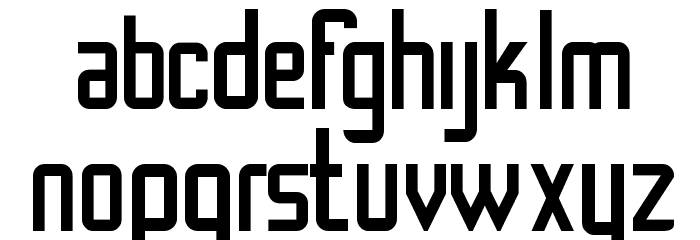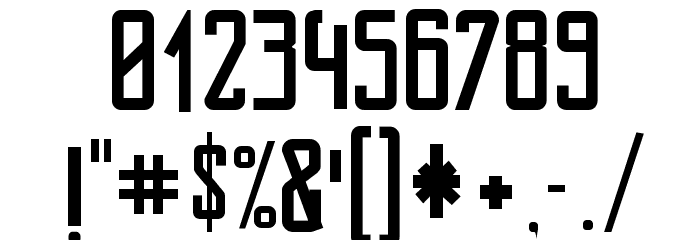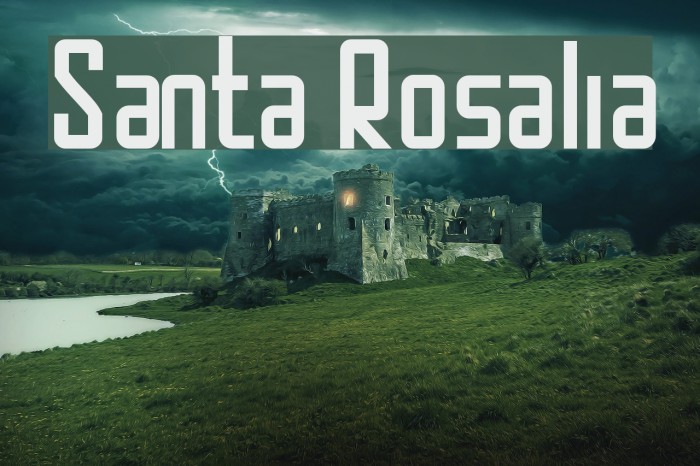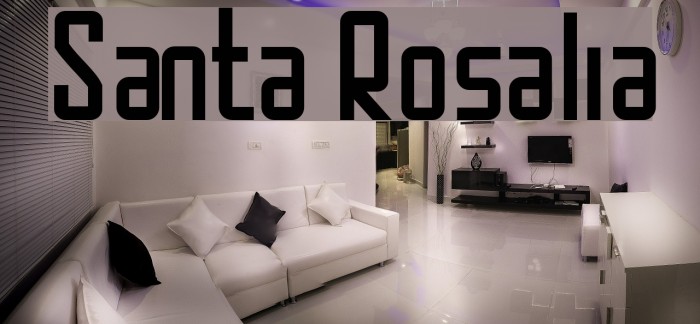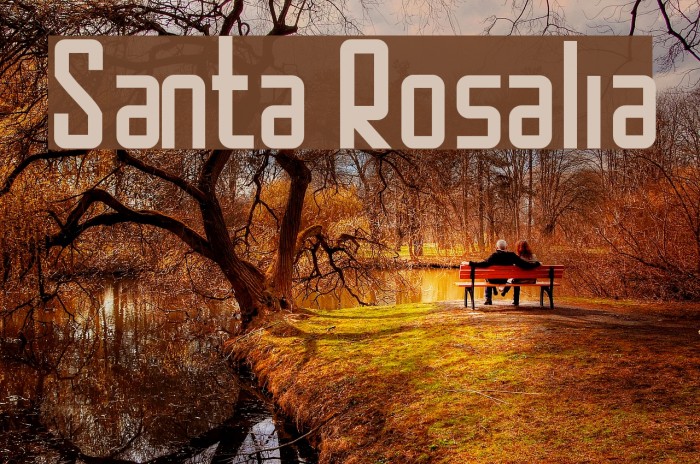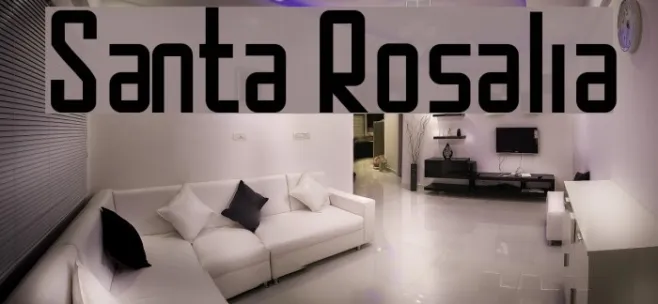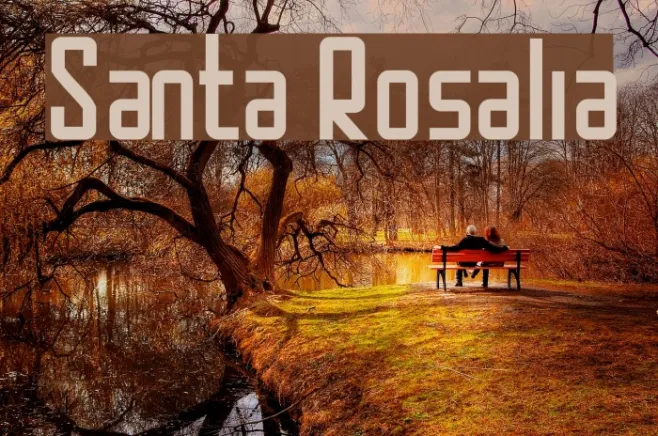
Santa Rosalia Font
This font features a bold, geometric design with a modern aesthetic. The characters are constructed with clean, straight lines and sharp angles, giving it a futuristic and structured appearance. The uppercase letters are uniform in height, while the lowercase letters maintain a consistent style that complements the uppercase. The numerals are distinct and align well with the overall design, ensuring readability. Special characters are included, maintaining the same geometric style, making this font versatile for various applications. The overall look is sleek and professional, suitable for contemporary design projects.
A bold, geometric font with a modern and structured design.
- Proposed Projects: Ideal for branding, posters, headlines, and digital interfaces where a modern and bold statement is needed.